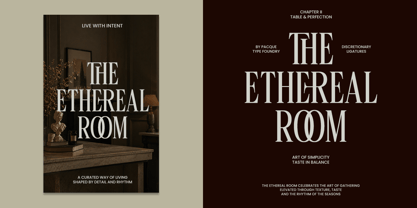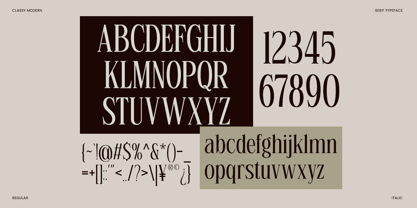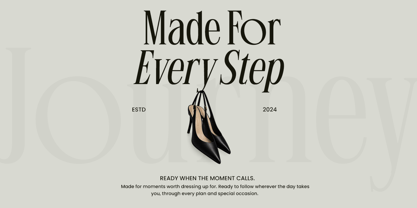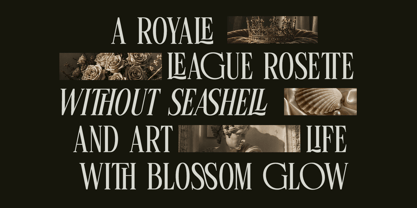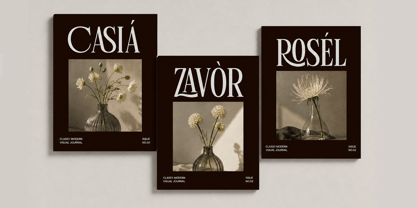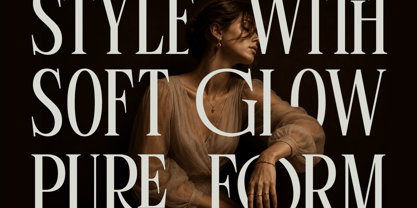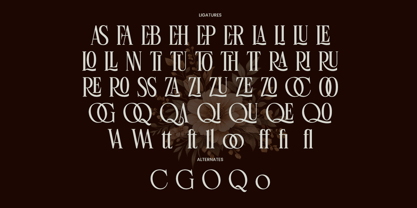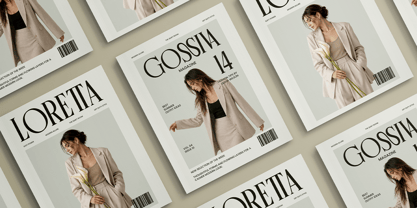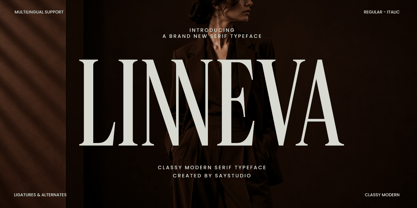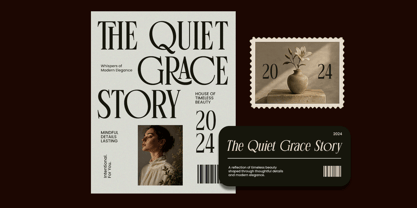
Linneva
by Say Studio
The Linneva Font Family was designed by Mussyayin and published by Say Studio. Linneva contains 2 styles and family package options. More about this family
Linneva is a sophisticated modern serif typeface that captures the essence of timeless luxury and contemporary refinement. Designed with graceful high-contrast strokes, elegant proportions, and beautifully crafted ligatures, Linneva brings an editorial aesthetic that instantly elevates every design. Its distinctive letterforms create a premium visual experience while maintaining exceptional readability across both large headlines and delicate branding applications.
Inspired by luxury magazines, fashion campaigns, boutique packaging, and high-end lifestyle branding, Linneva seamlessly blends classic typography with modern minimalism. The included alternates and stylish ligatures provide endless creative possibilities, allowing designers to create unique logos, elegant invitations, cosmetic packaging, jewelry branding, social media content, and sophisticated visual identities with effortless style.
Whether you're designing for luxury brands, editorial layouts, wedding stationery, beauty products, interior studios, or premium marketing campaigns, Linneva delivers an unmistakable sense of elegance and exclusivity. Complete with uppercase, lowercase, numerals, punctuation, multilingual support, ligatures, and alternate characters, it is the perfect serif typeface for projects that demand beauty, prestige, and lasting impressions.
• Regular and Italic Style
• Stylistic Ligatures
• Stylistic Alternates
• Uppercase and Lowercase
• Number, Symbol, and Puntuation
• Multi Language Support
Designers: Mussyayin
Foundry: Say Studio